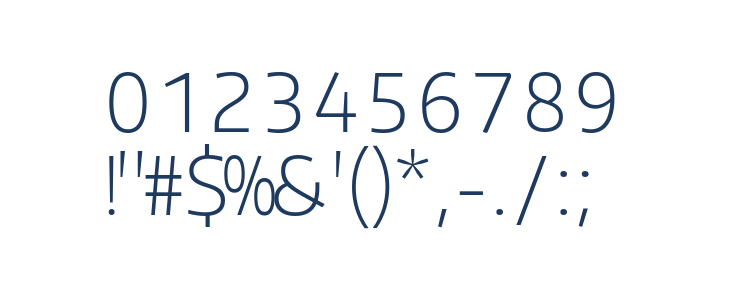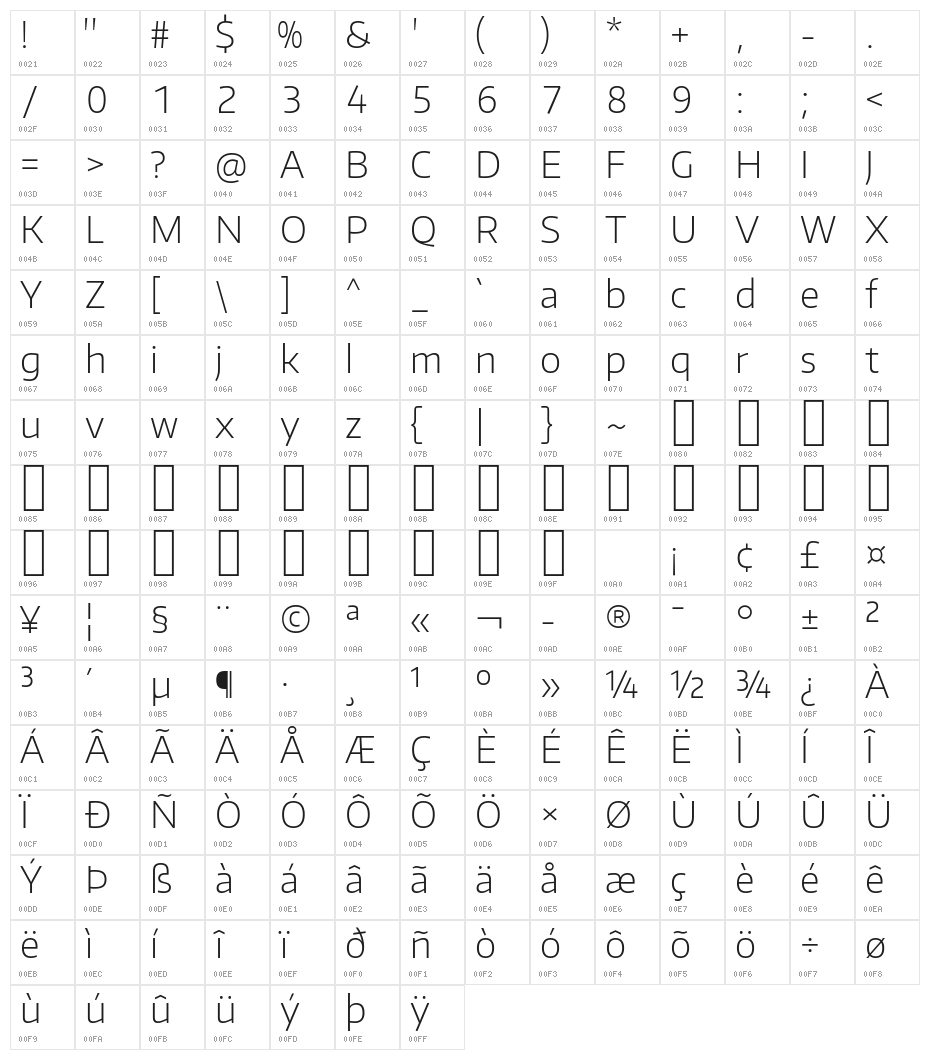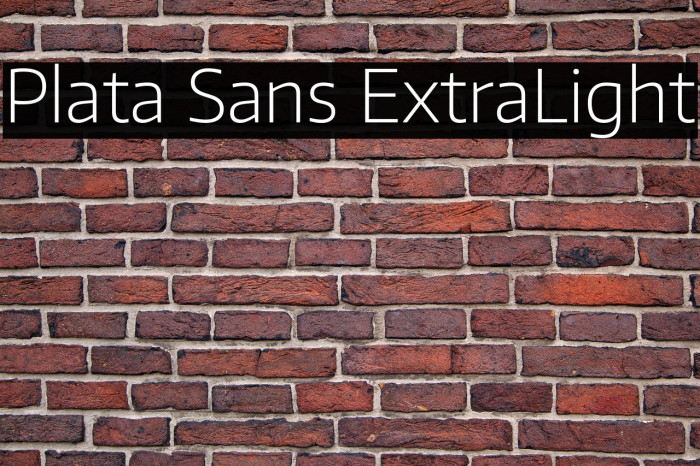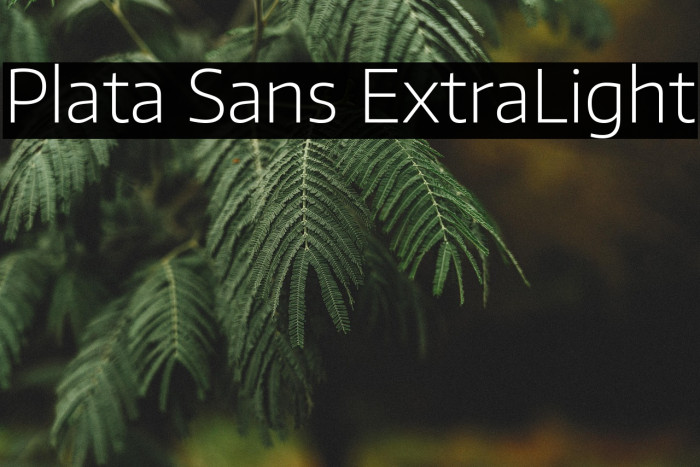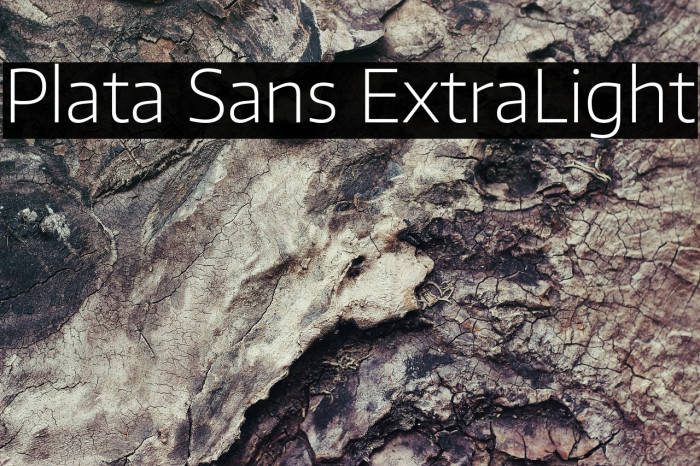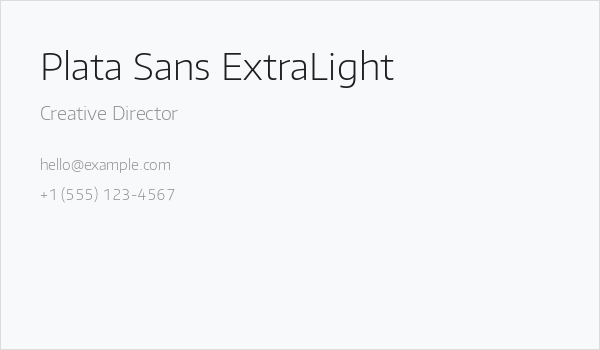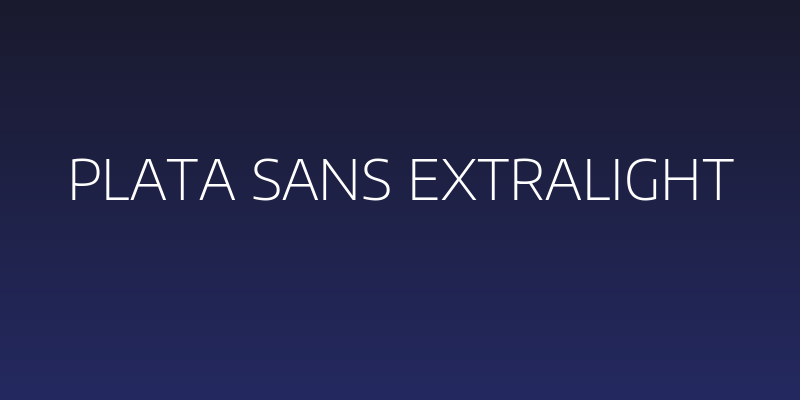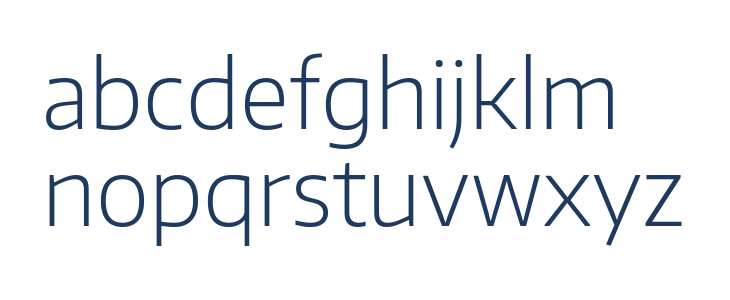
Plata Sans ExtraLight Font
Plata Sans ExtraLight Description
This font features a clean and modern sans-serif design with a focus on simplicity and readability. The characters are evenly spaced and exhibit a uniform stroke width, contributing to a harmonious and balanced appearance. The uppercase letters are tall and slightly narrow, while the lowercase letters maintain a consistent height, enhancing legibility. The numerals are clear and distinct, making them suitable for both digital and print applications. Special characters are well-integrated, ensuring versatility in various contexts. Overall, this font exudes a contemporary and professional aesthetic, ideal for projects requiring a sleek and understated look.